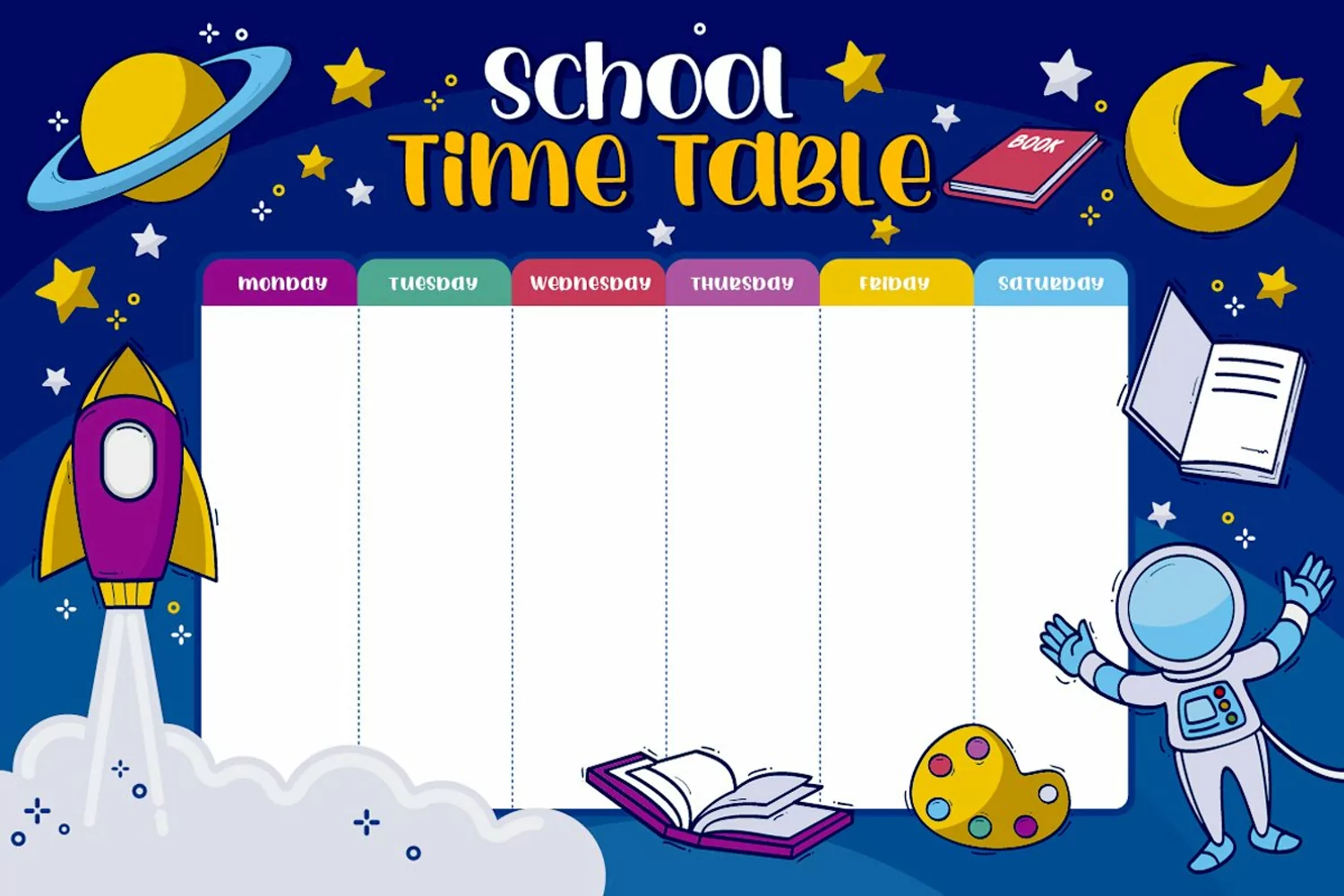
Luar Galaxy - Handwritten fonts
Introducing "Luar Galaxy"
Luar Galaxy a Handwritten Display Font With 3 Style (Regular,Outline and Shadow)
You Can Mix And Match for Your Awesome Project
This fonts is ideal for crafting, branding and decorate your any project. This fonts are perfect for wedding invitation or your blog. Also with their help, you can create a logo or beautiful frame for your home. Or just use for your business, book covers, stationery, marketing, magazines and more.
Uppercase & Lowercase
Number & Punctuation
More than 227 of glyphs
Multilingual Language
PUA Encode
9 Ligatures